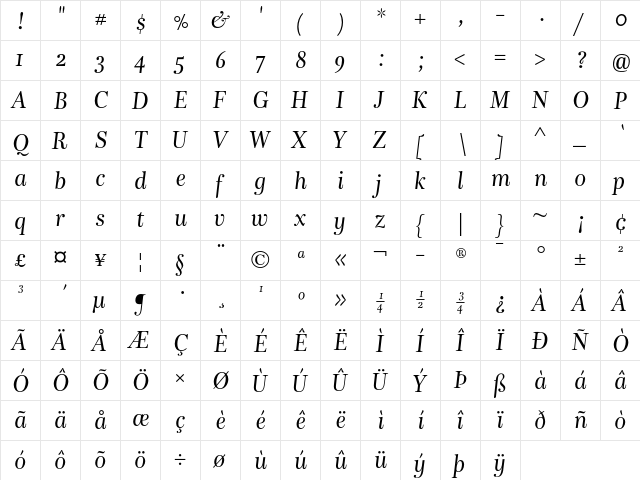
Bohemia LT Std Italic
Design Context for Bohemia LT Std Typeface
Bohemia LT Std is a composed and adaptable typeface that performs quietly and consistently across a wide range of design contexts. The slanted form adds forward momentum and visual energy. The delicate stroke weight brings airiness and refinement to layouts.
Pro Tip: Use Bohemia LT Std for emphasis, pull quotes, and subheadings where its slanted energy can add rhythm to the layout.